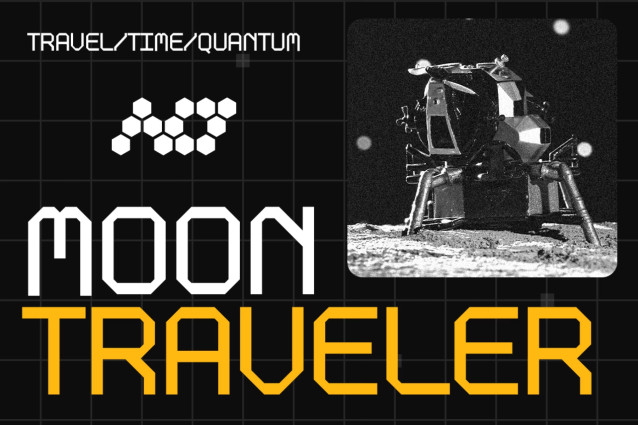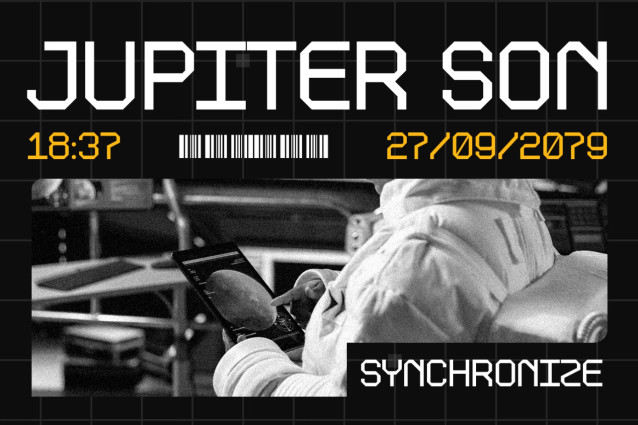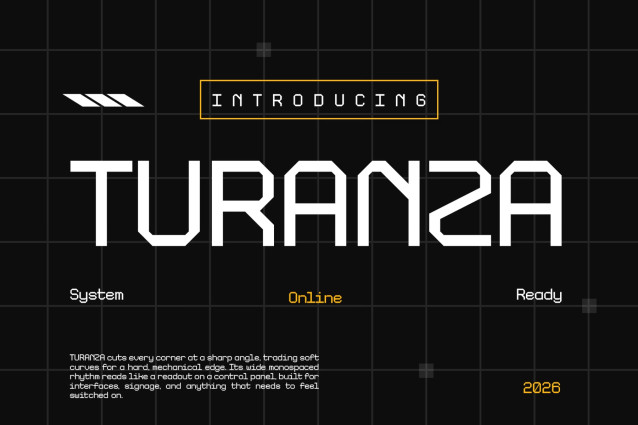
TURANZA Display Font
Modern Font TURANZA is a sleek display font built for futuristic ideas and digital worlds. Right away, its geometric letterforms create a sharp, technical appearance. Moreover, the wide shapes and precise details give TURANZA a strong sci-fi personality. Meanwhile, its clean construction keeps text readable and visually balanced. Because of this, it works beautifully for bold headlines, interface graphics, and modern visual systems. In addition, TURANZA includes Multilingual Support for 67 Languages. Therefore, it is ready for creative projects with a global audience.